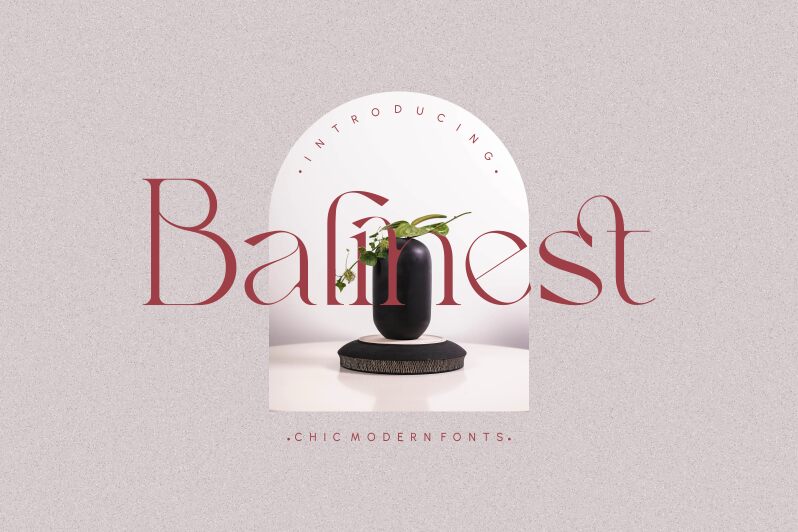
Balinest is a retro-style, light display font created by Saiful Fahri. With its unique letterforms and playful characteristics, Balinest is perfect for creating eye-catching logos, titles, posters and signage. Its versatile nature also makes it suitable for a variety of other projects including packaging design, book covers and apparel.